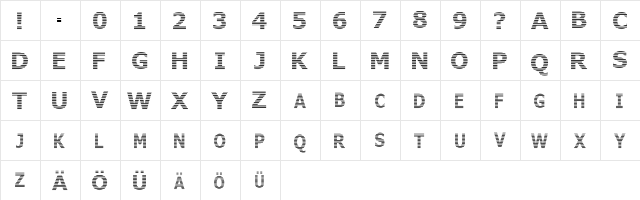
Where is the rest Regular
Design Context for Where is the rest Typeface
Where is the rest takes a measured approach to typography — its balanced proportions and neutral character make it a reliable workhorse for both digital and print work.